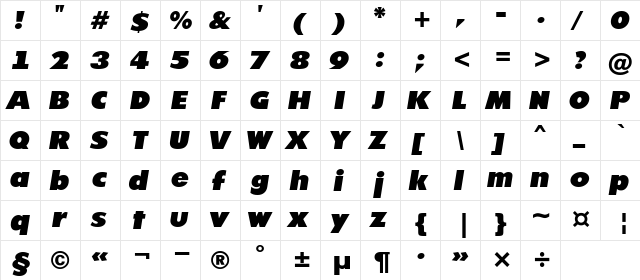
a_FuturicaNord Italic
Design Context for a_FuturicaNord Typeface
a_FuturicaNord channels digital-age aesthetics through its sharp, structured letterforms — ideal for brands that want to signal innovation. The dynamic lean of this cut emphasises speed and emphasis in any layout.
Pro Tip: Try a_FuturicaNord with generous letter-spacing in UI labels and navigation — the geometric forms benefit from room to breathe.